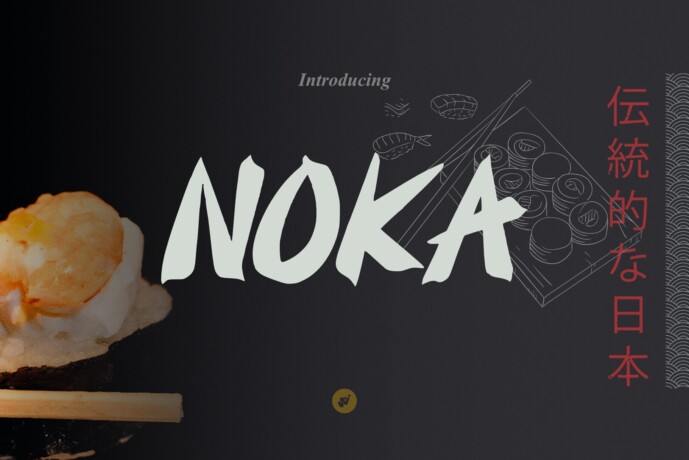
Noka Font
This brush font draws its inspiration from the timeless art of traditional Japanese calligraphy (shodō), delivering a bold, dynamic, and deeply authentic aesthetic. Its thick, expressive strokes embody the essence of Japanese culture—rich in character, strength, and spirited elegance.
Perfectly suited for: Japanese restaurant logos, souvenir shops with a Japanese theme, product branding rooted in Japanese style, posters for cultural or traditional Japanese events